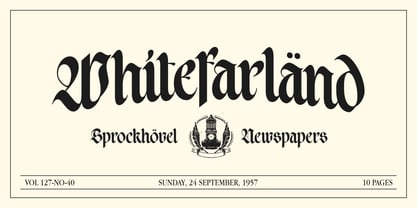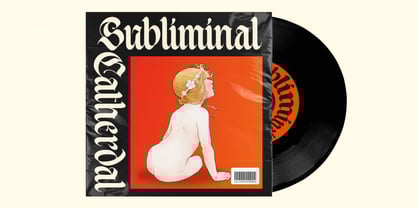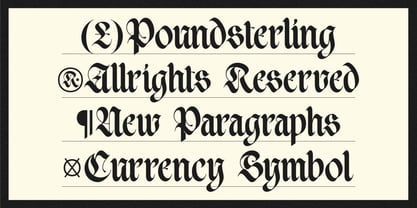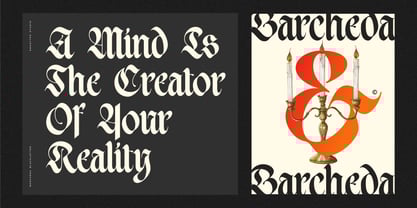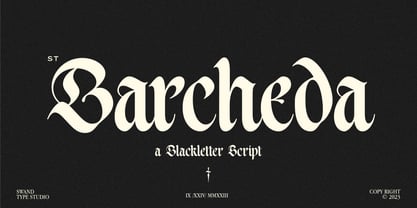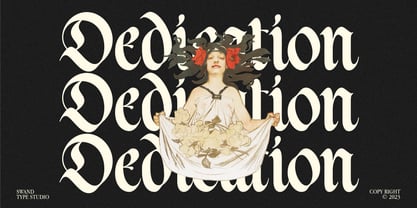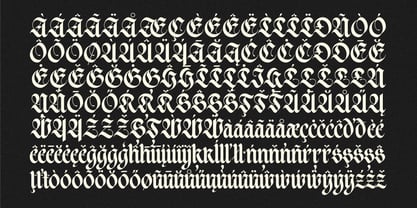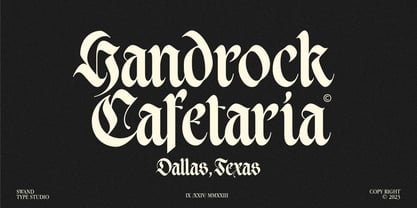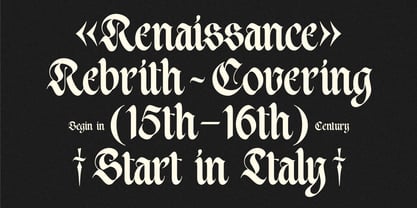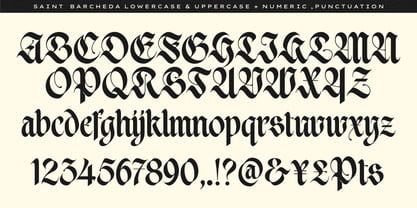
ST Barcheda
by Swand Type
The ST Barcheda Font Family was designed by Michola Putra Siswandi and published by Swand Type. ST Barcheda contains 1 styles. More about this family
ST Barcheda is a Blackletter Script Font.
Made to express things in a masculine and assertive way.
With high letters, it makes it have a more dominant impression.
ST Barcheda is perfect for display purposes such as editorial projects, Logo design, Music Album, Clothing Branding, product packaging, magazine or news paper headers, or simply as a stylish text overlay to any background image